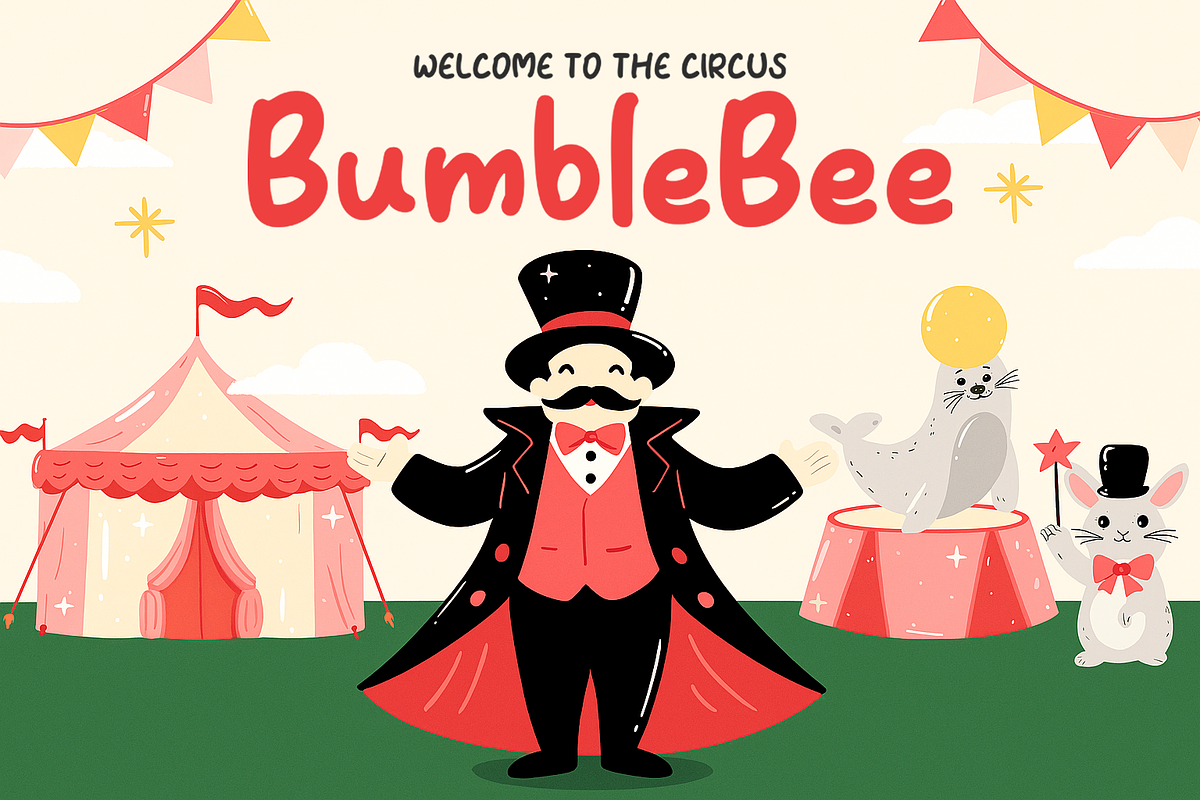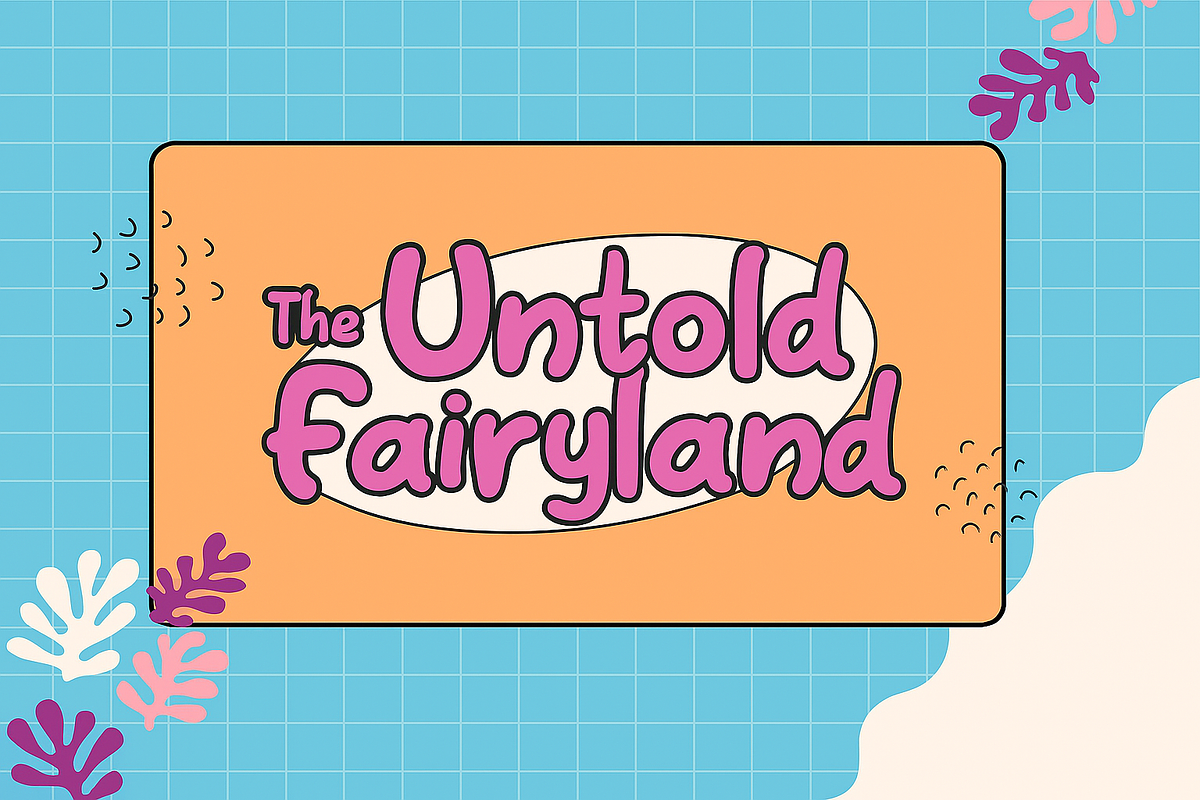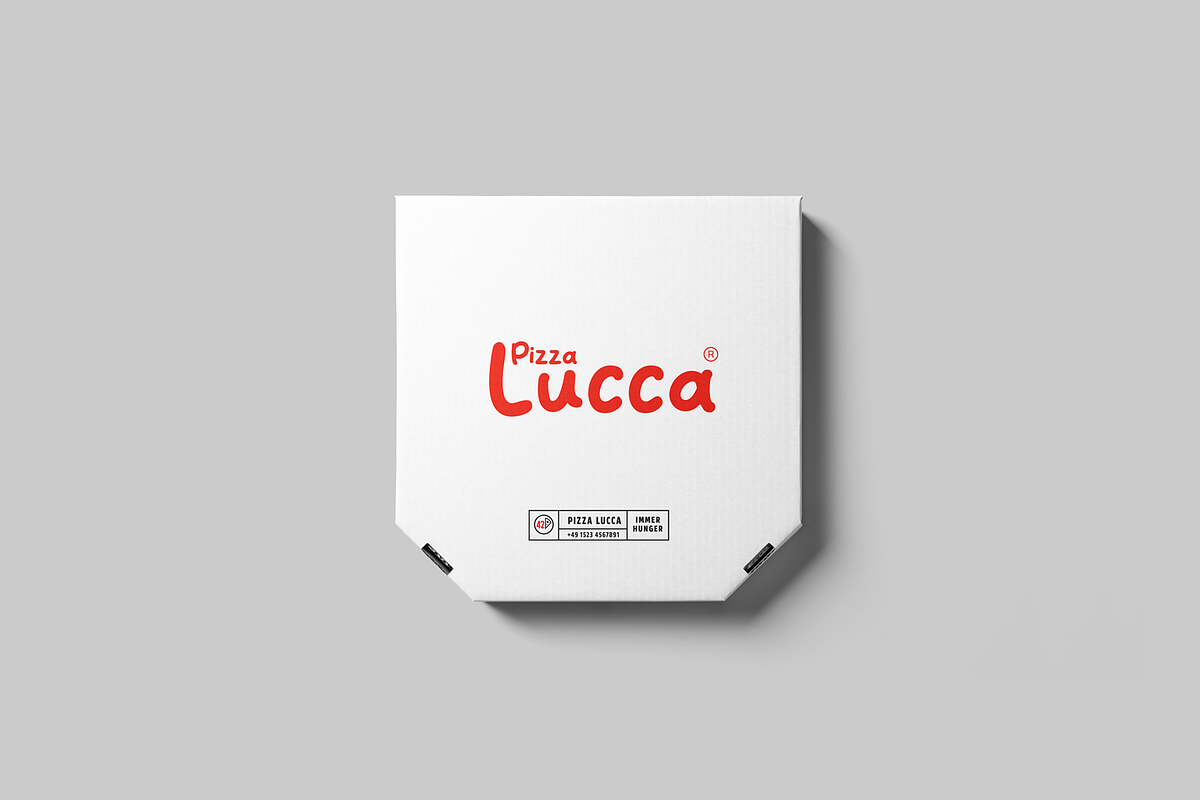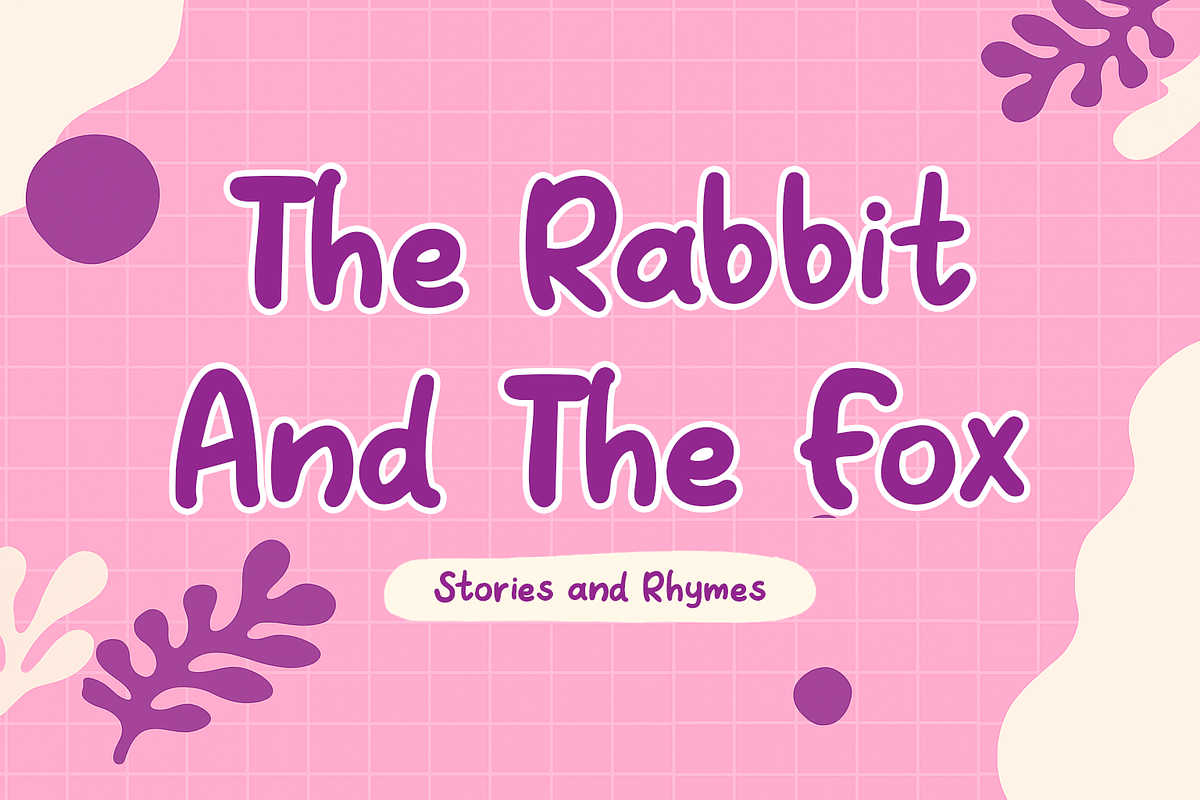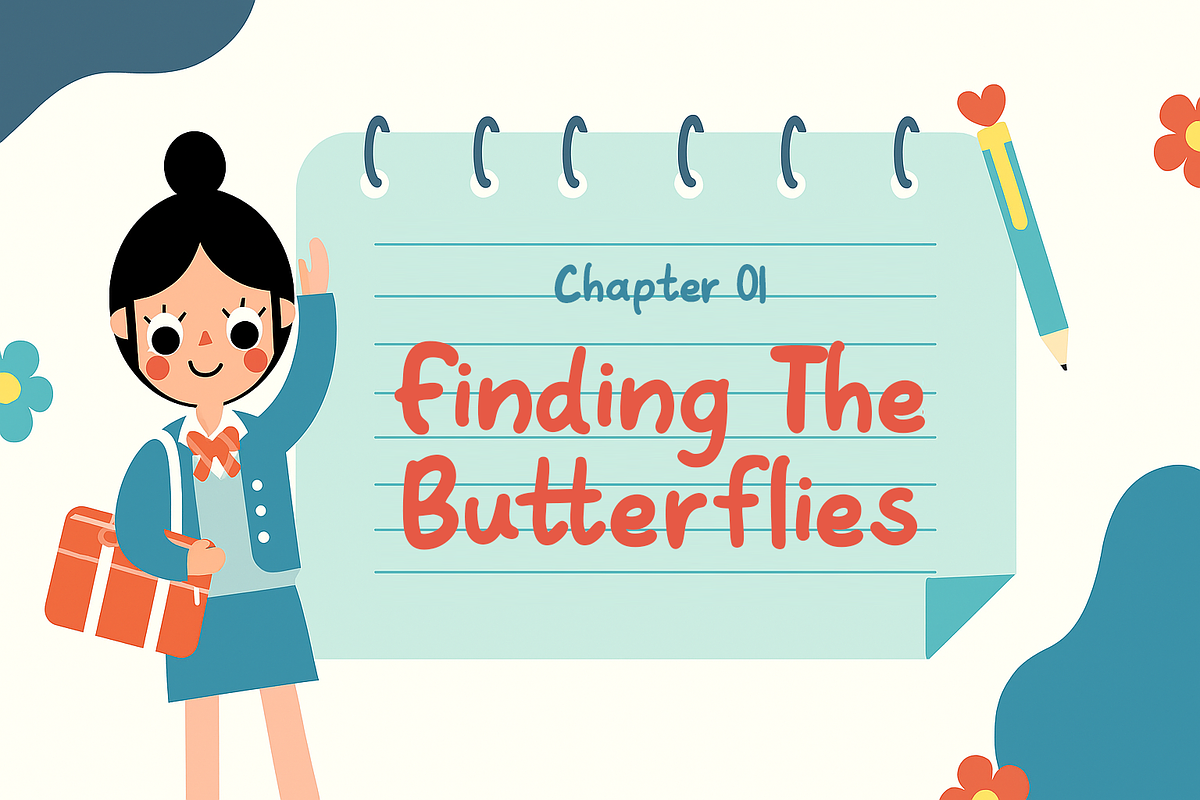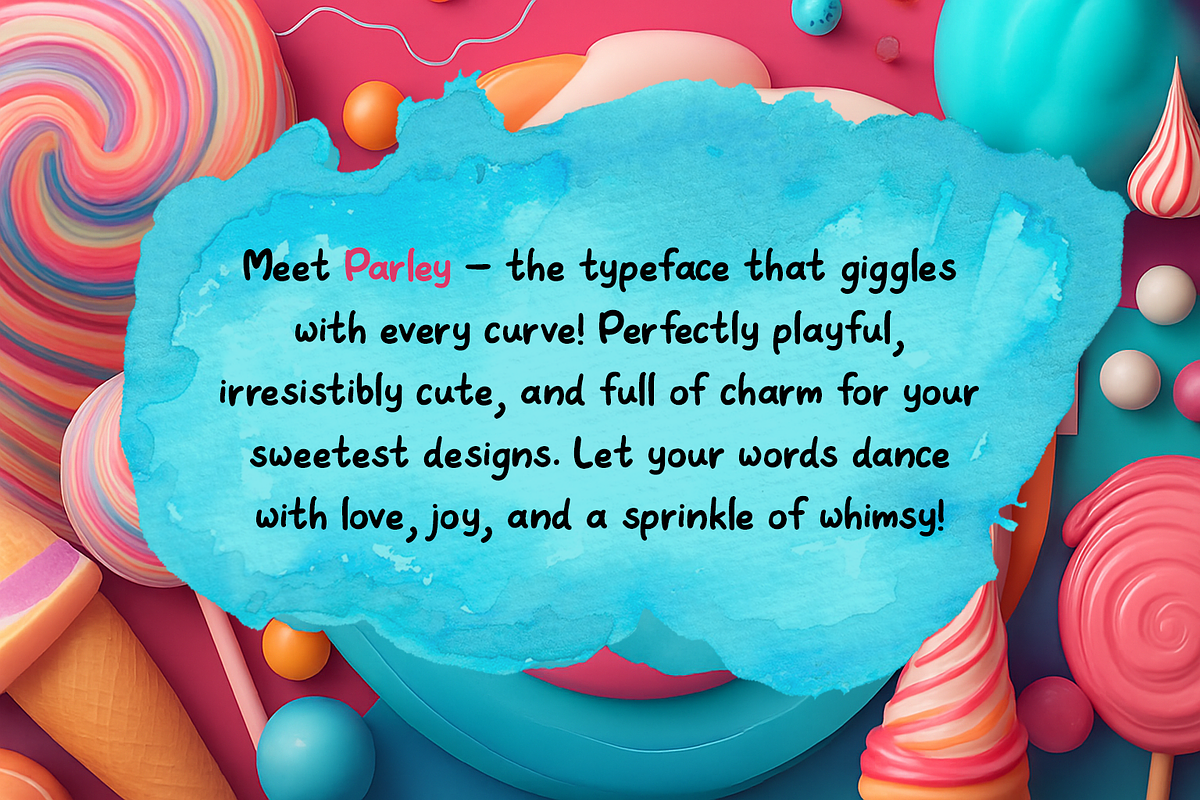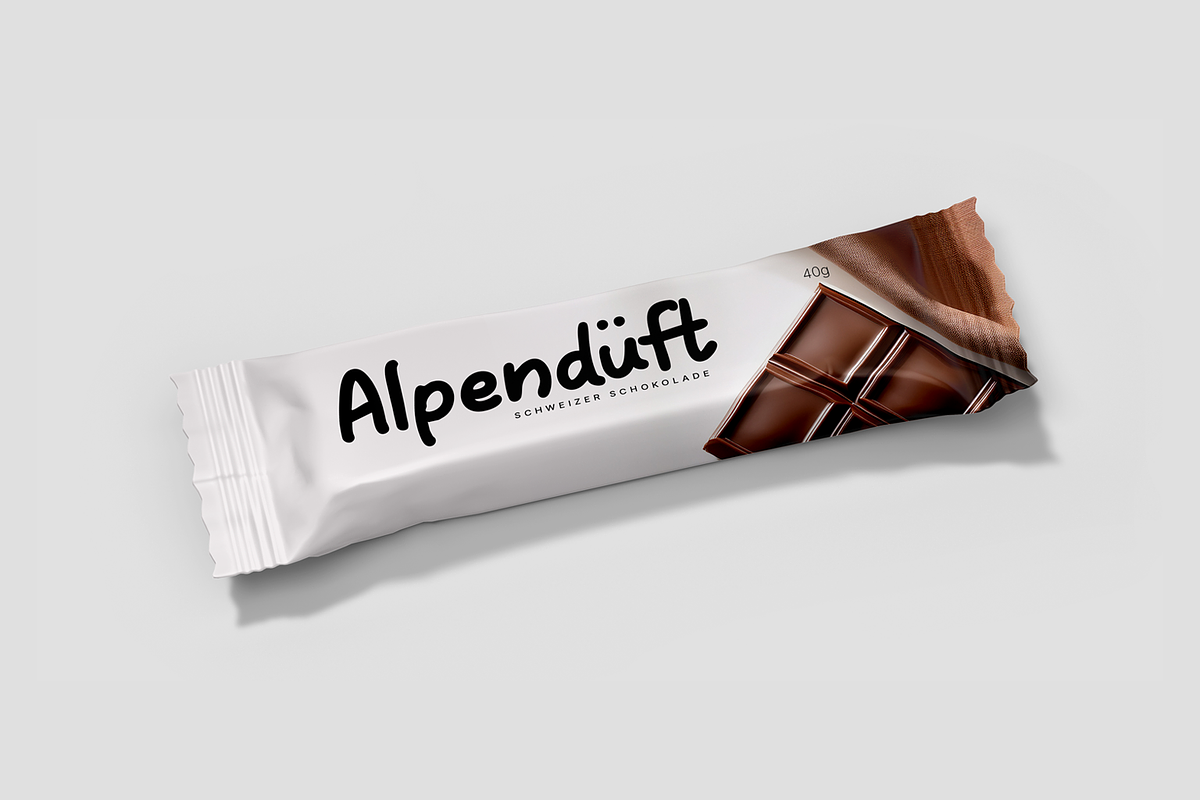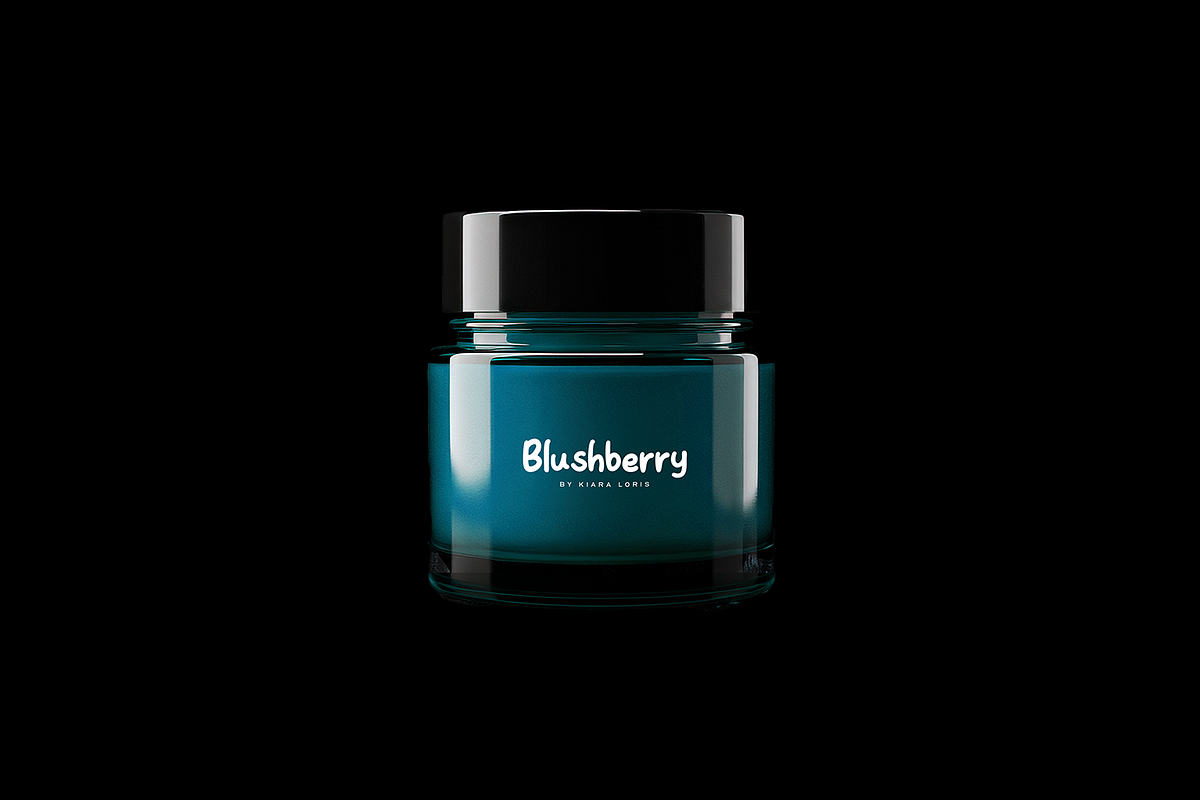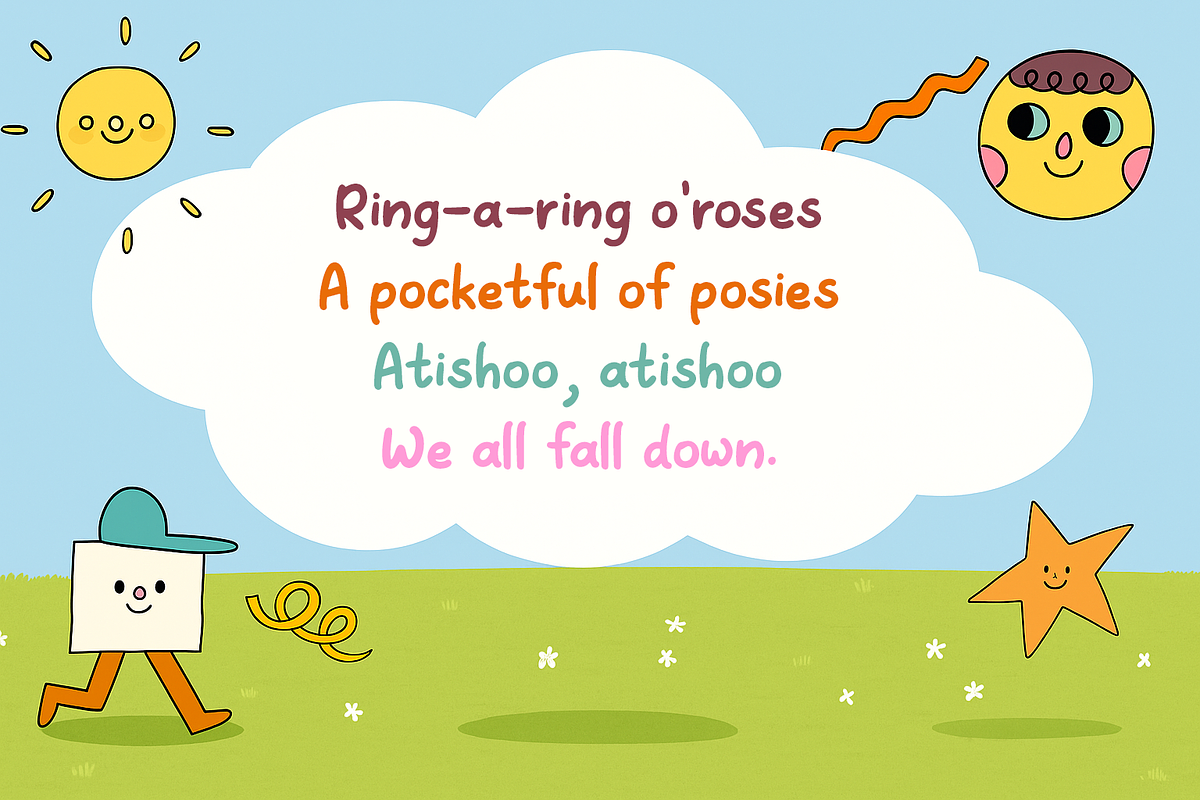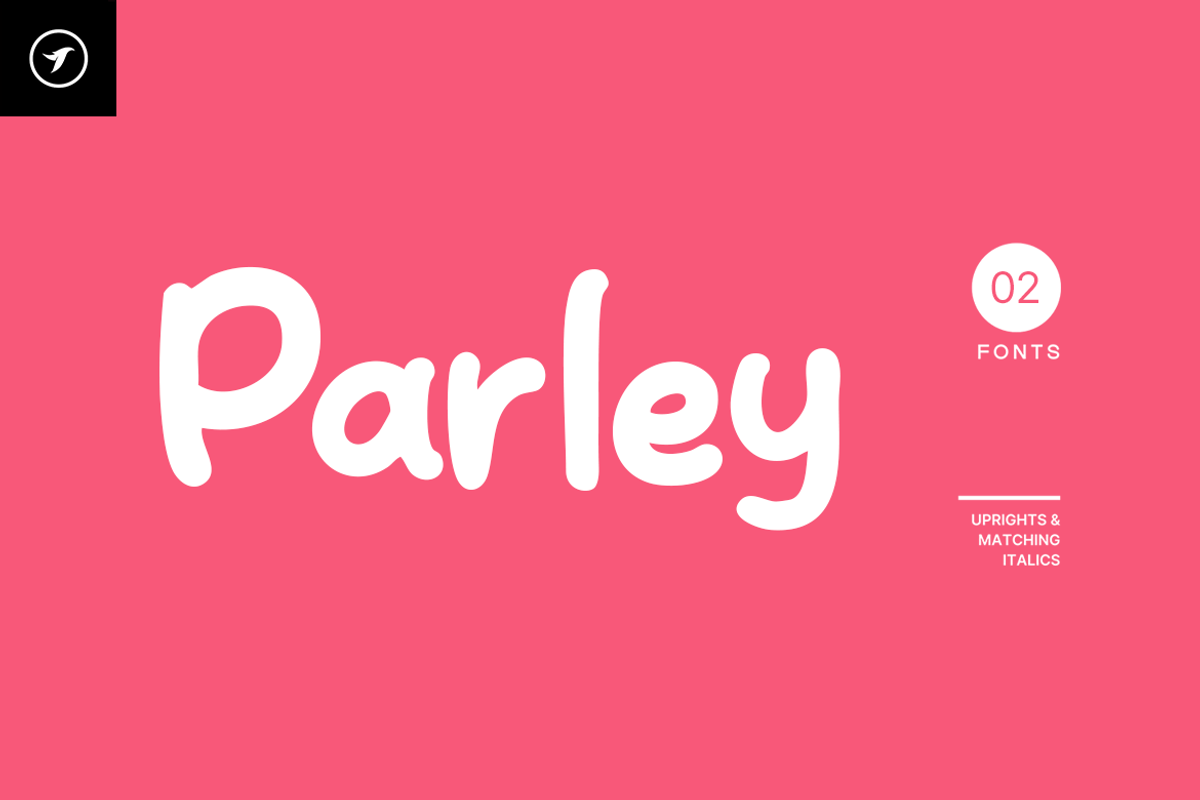
Parley - Lovely & Playful Kids Font
Parley – a quirky and casual handwritten font that brings the feel of spontaneous conversation and creative sketches to life. Inspired by quick notes, dialogue bubbles, and hand-drawn storyboards, Parley captures the ease and charm of everyday handwriting with a modern twist.
Though its design remains clean and approachable, Parley carries a distinct personality, making it an excellent choice for posters, comic panels, playful branding, web graphics, merchandise, and social media posts. Its informal yet expressive style adds warmth and relatability to any design. Check out the previews above to explore its versatility and visual rhythm.
This typeface supports an extended Latin character set that includes Western, Central, and Southeastern European languages, covering over 200 languages in total. Whether your project is local or international, Parley ensures that your message is seen and understood across borders.
Typeface designed by Lis (Lisha) at Designova®